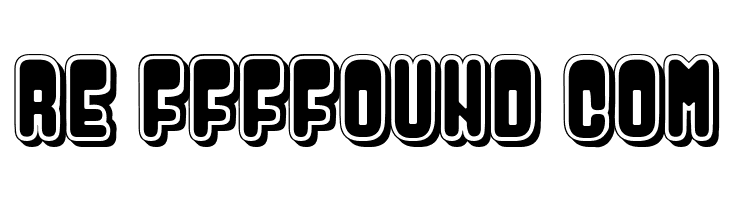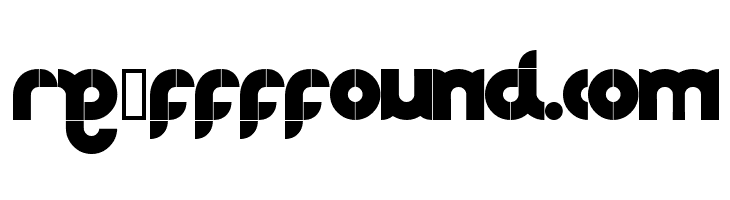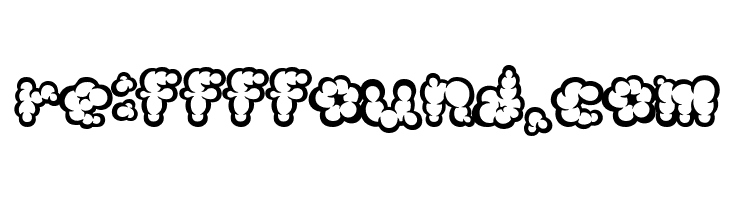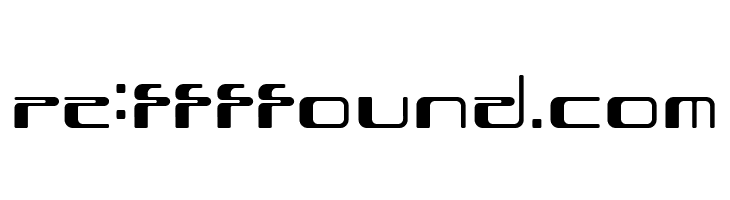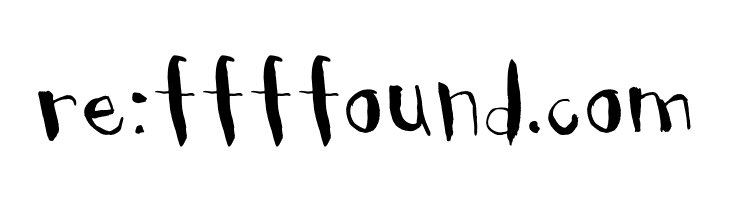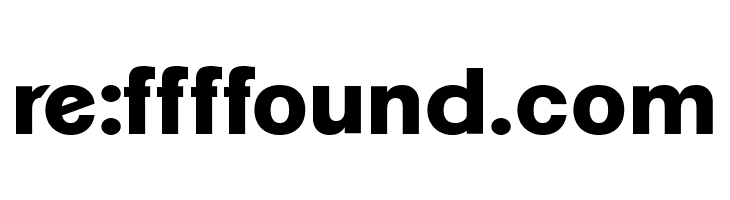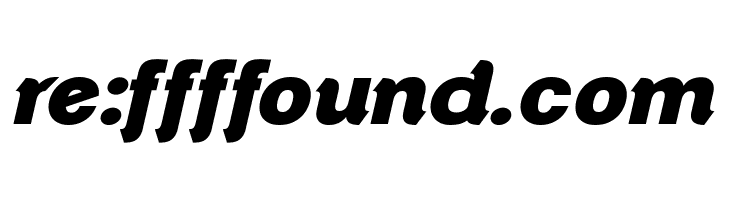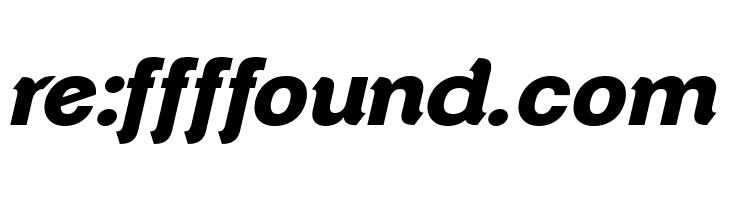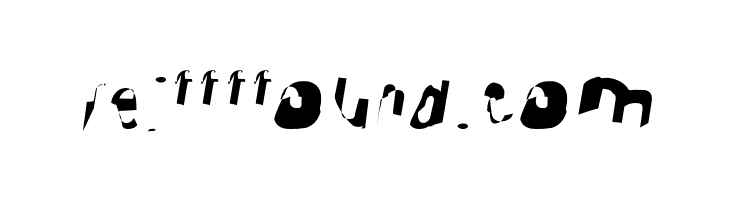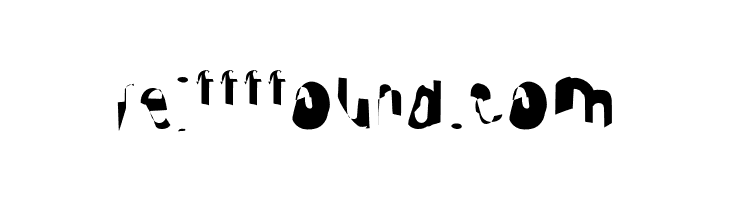
• ClementePDao-Heavy
• ClementePDap-HeavyItalic
• ClementePDaq-UltraBold
• ClementePDar-UltraBoldItalic
• Cleopatra Regular
A bold, decorative font with a 3D effect and intricate detailing.
• Clink
• Clink Outlined
• Cliperbold
• Cliperopen
A bold, outlined font with a playful and modern aesthetic.
• Clipershadow
A bold, playful font with a 3D shadow effect, perfect for dynamic designs.
• CLIQUE
A modern, tech-inspired font with geometric shapes and clean lines.
• cloer
A bold, geometric font with a blocky, pixelated design.
• CloooudAL
A playful, cloud-inspired font with a whimsical and airy design.
• Clothing brands
A distressed, grunge-style handwritten script font with a bold, textured appearance.
• Clowns Regular
A bold, playful font with rounded characters and a vintage circus vibe.
• CLUB
A bold, geometric font with a modular and modern design.
• Club Golf Bold
A bold, playful font with rounded edges and a sporty, vintage-inspired design.
• Club Golf Bold Italic
A bold, italicized font with rounded, playful characters and dynamic slant.
• Club Golf Italic
A modern italic script with a playful, handwritten style.
• Club Golf-Hollow
A modern, hollow font with rounded edges and a playful style.
• Club Golf-Hollow-Inverse
A modern, hollow font with a playful and geometric design.
• Club Golf-Inverse
A playful, modern font with rounded edges and consistent stroke width.